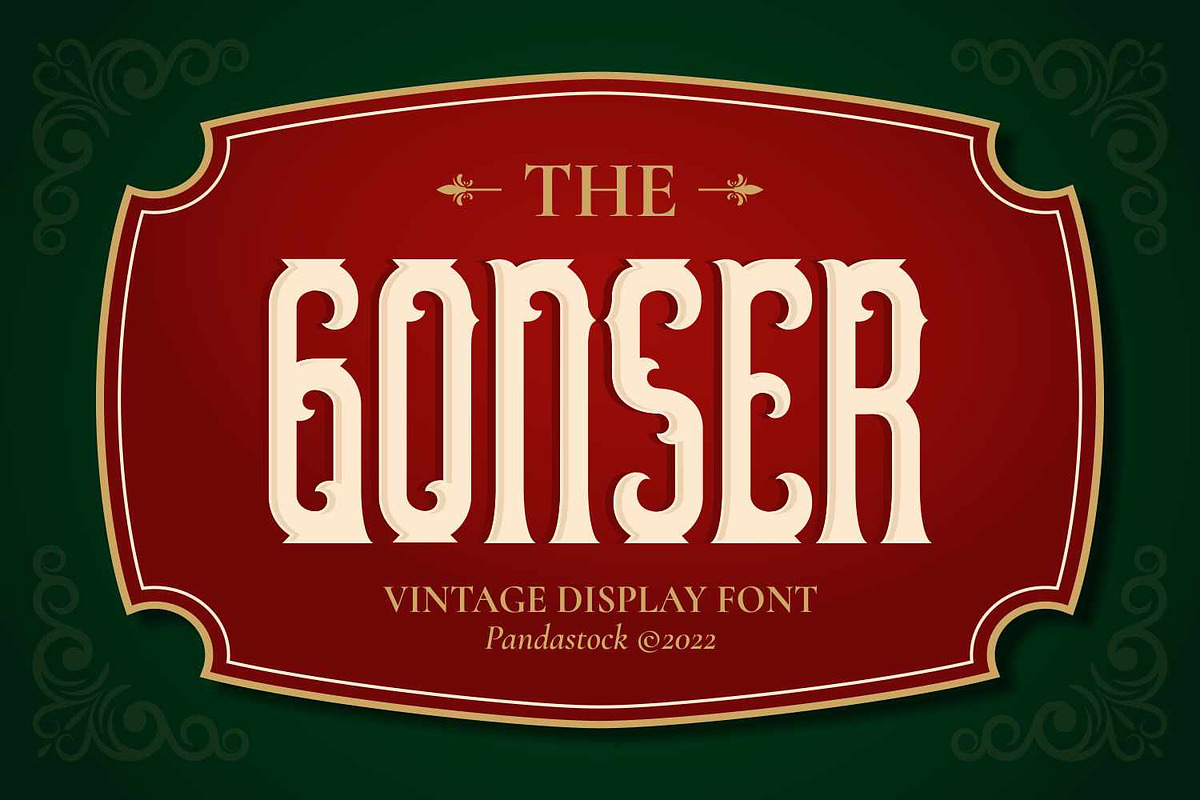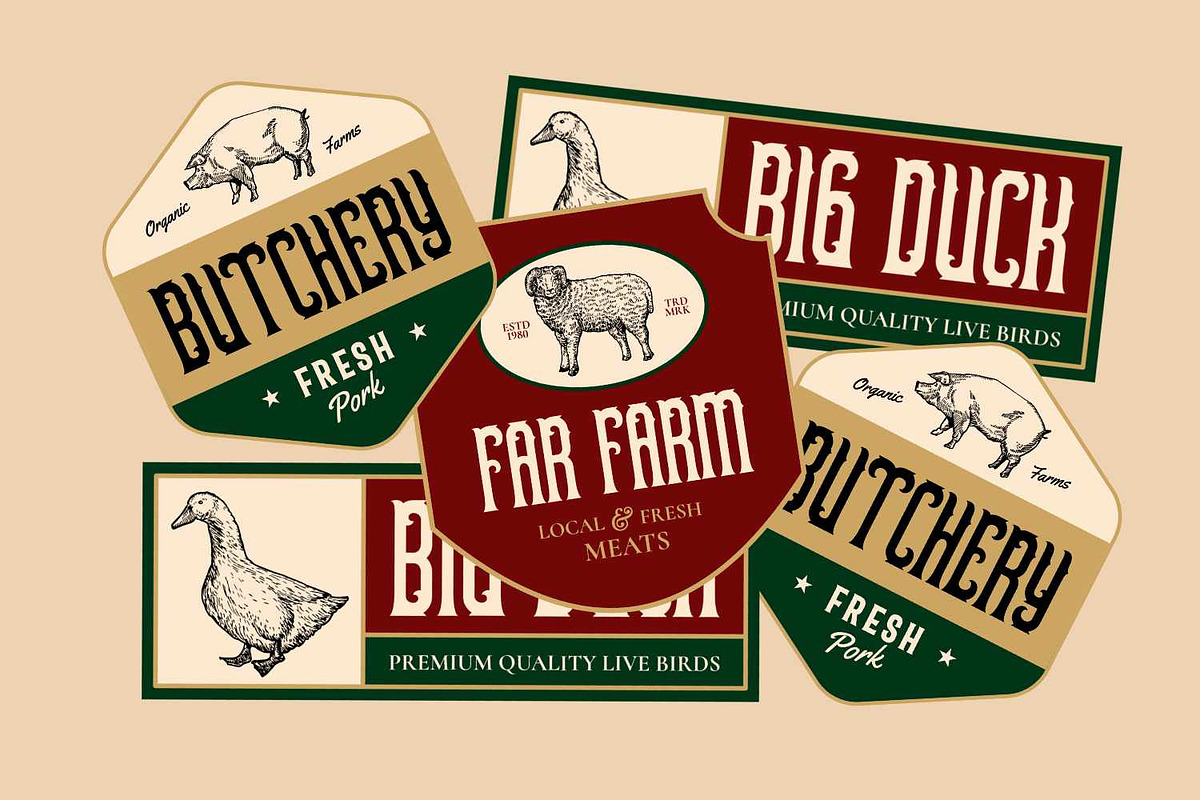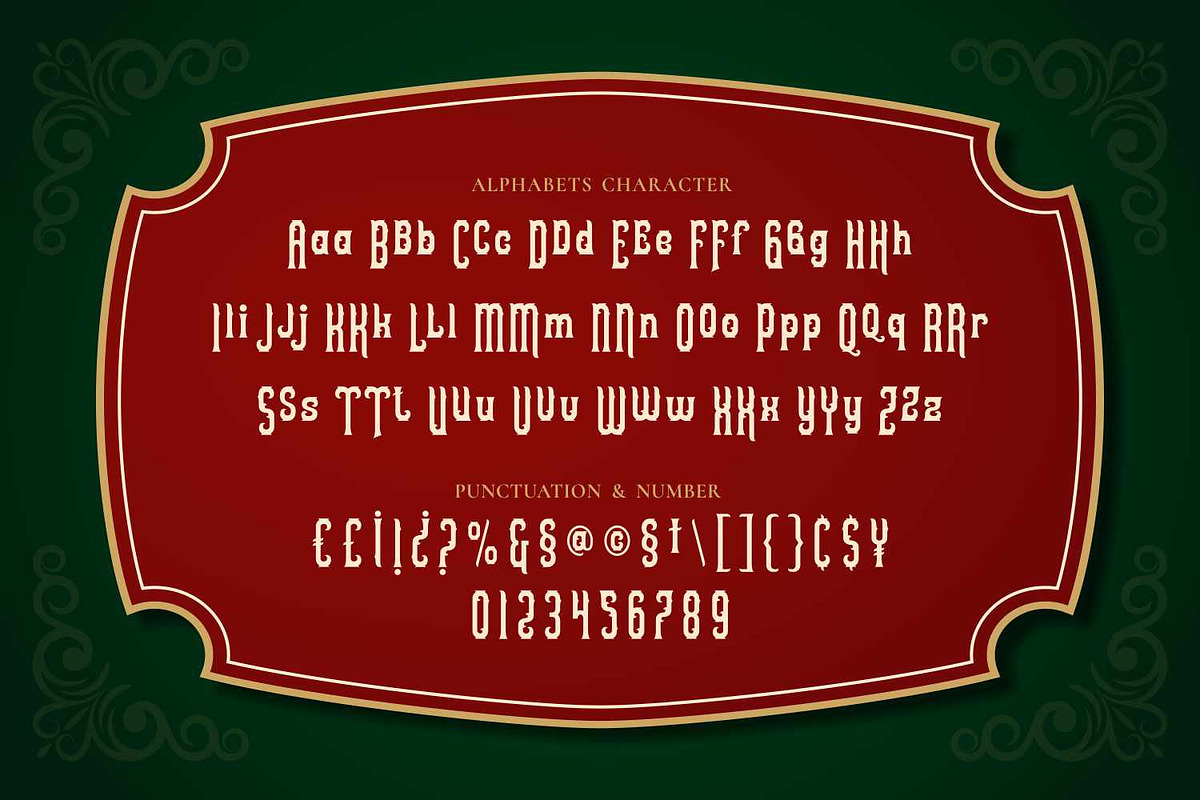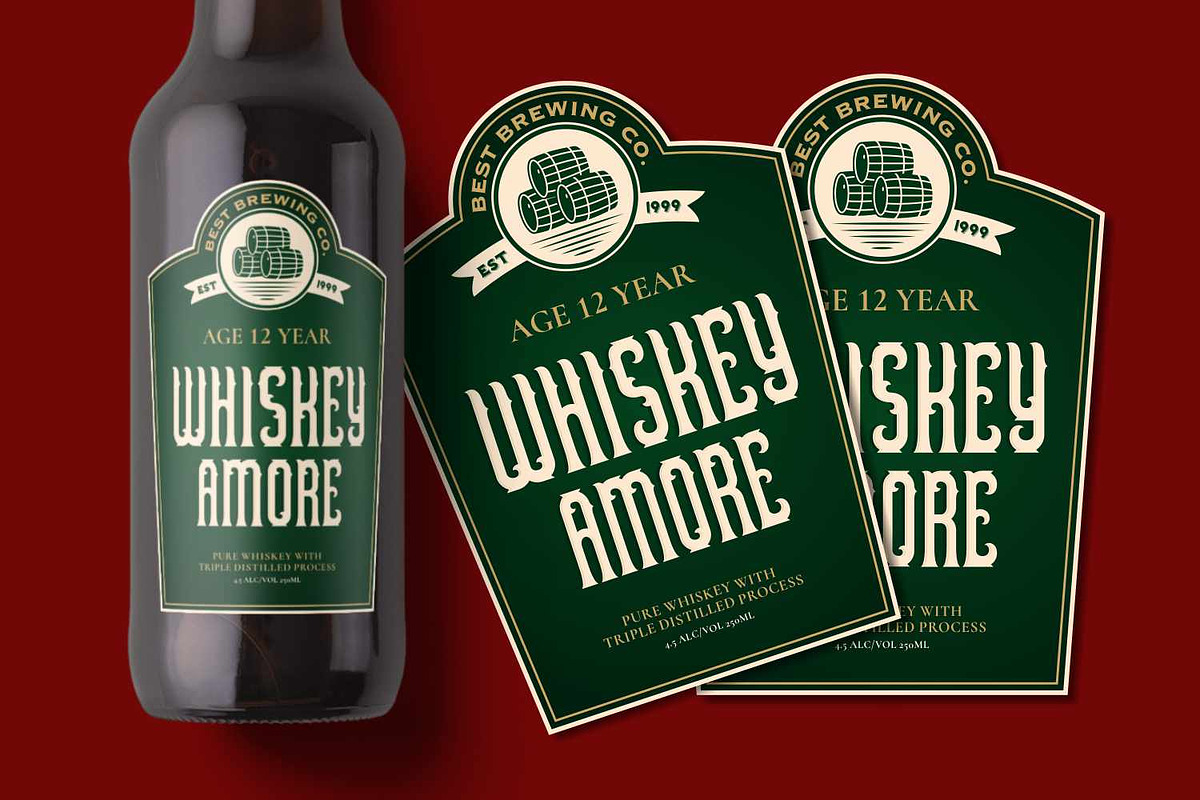
Gonser - Vintage Serif Typeface
Gonser is a vintage serif typeface, perfect for product labels, craft beverage labels, food packaging, and retro logo designs. Its tall, compact letterforms and eye catching slab serifs make a bold statement whether you're branding a labeling artisanal farm goods. Each character features subtle decorative quirks, such as angled terminals and distinctive foot shapes, lending a handcrafted feel while maintaining excellent readability.
Gonser is an ideal choice for designers seeking a classic retro font with a modern twist perfect for businesses aiming to evoke tradition, heritage food branding, and artisanal craftsmanship.